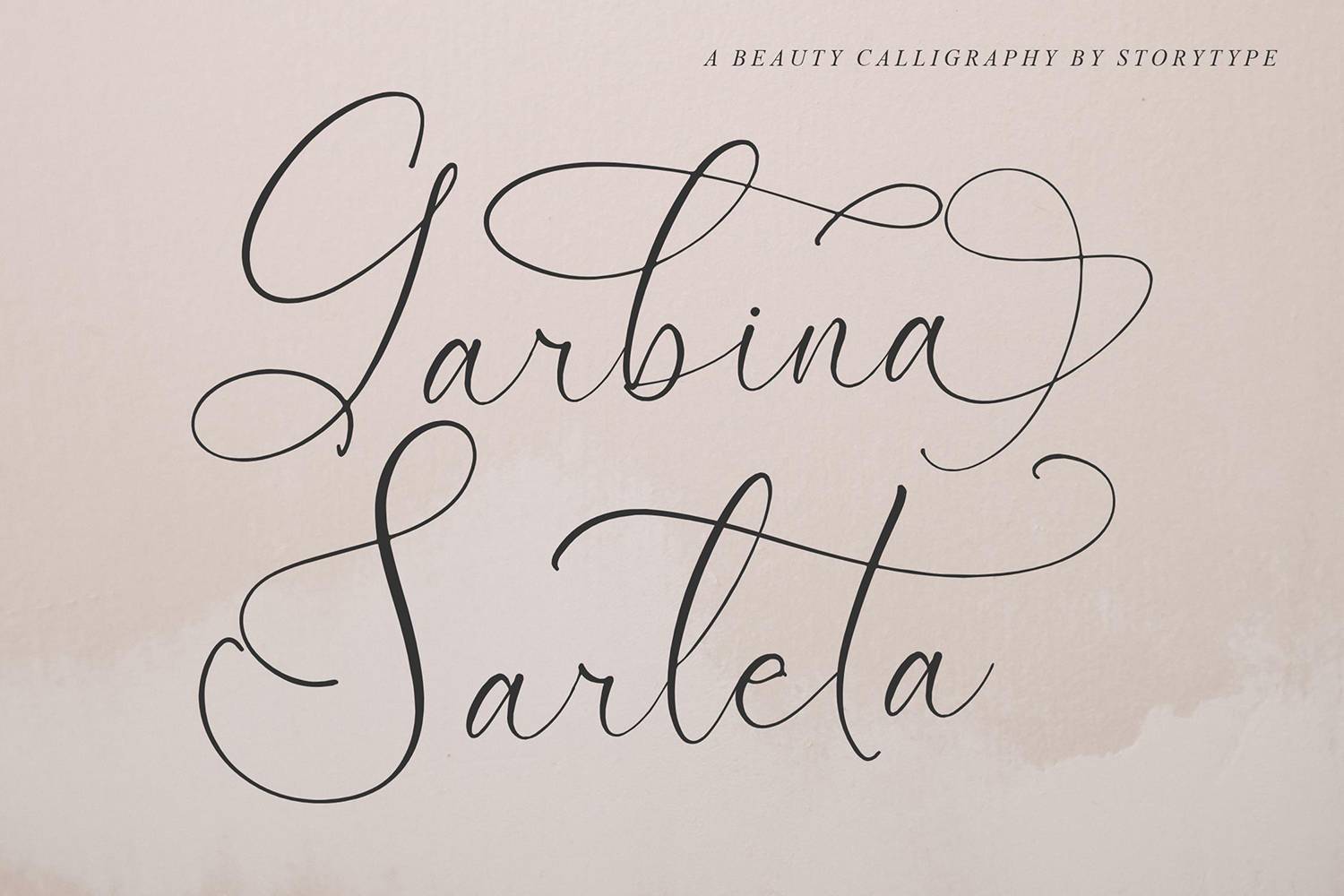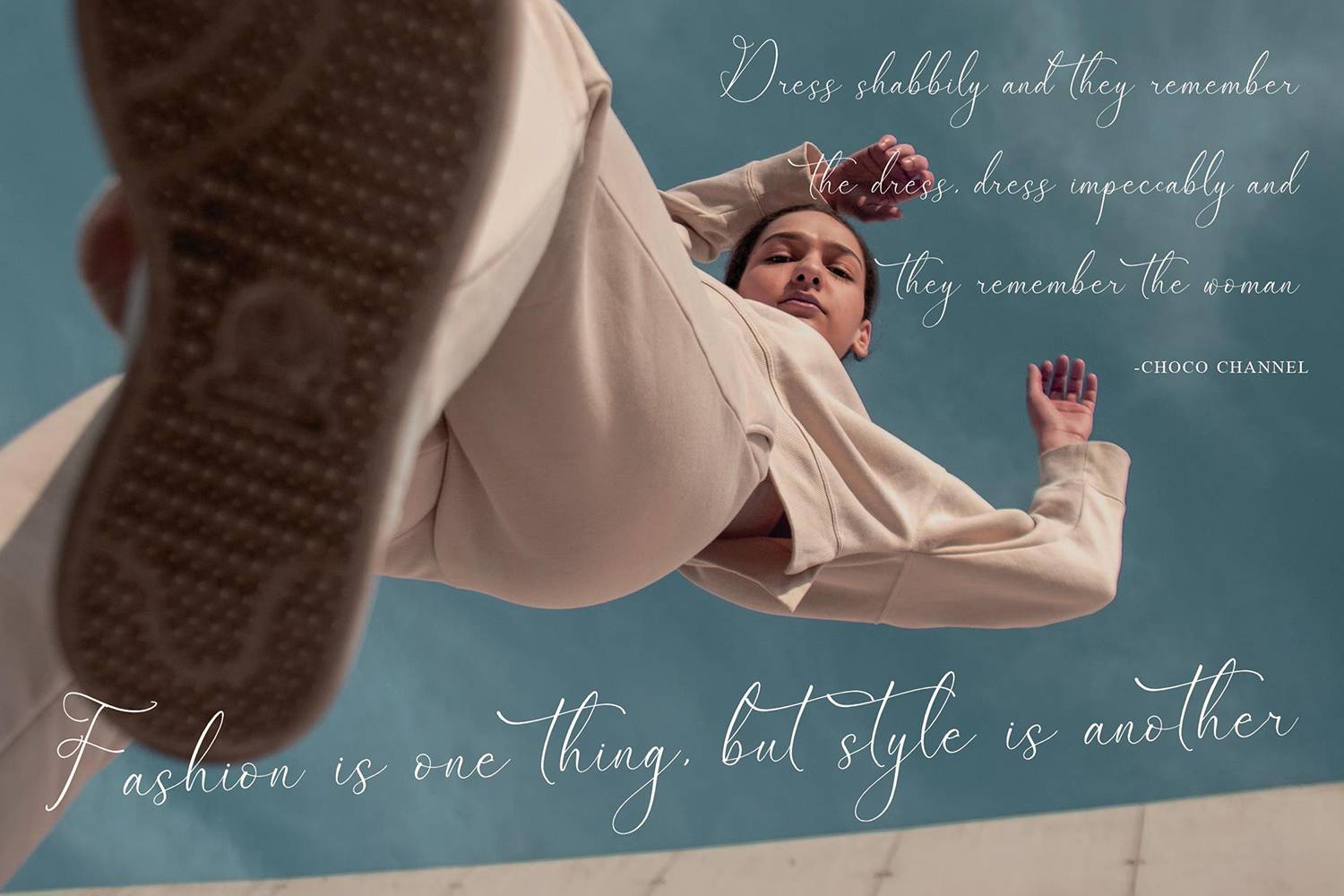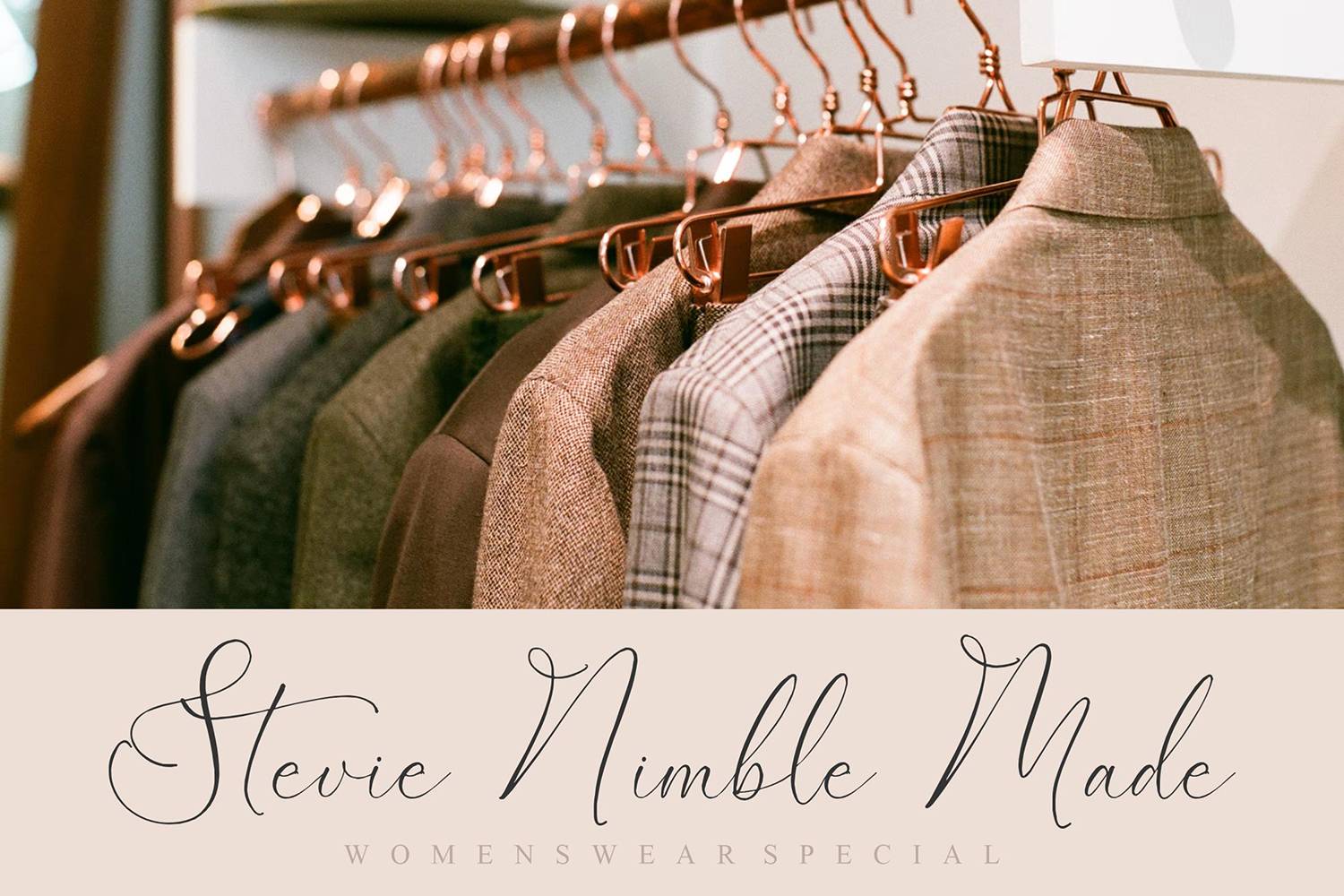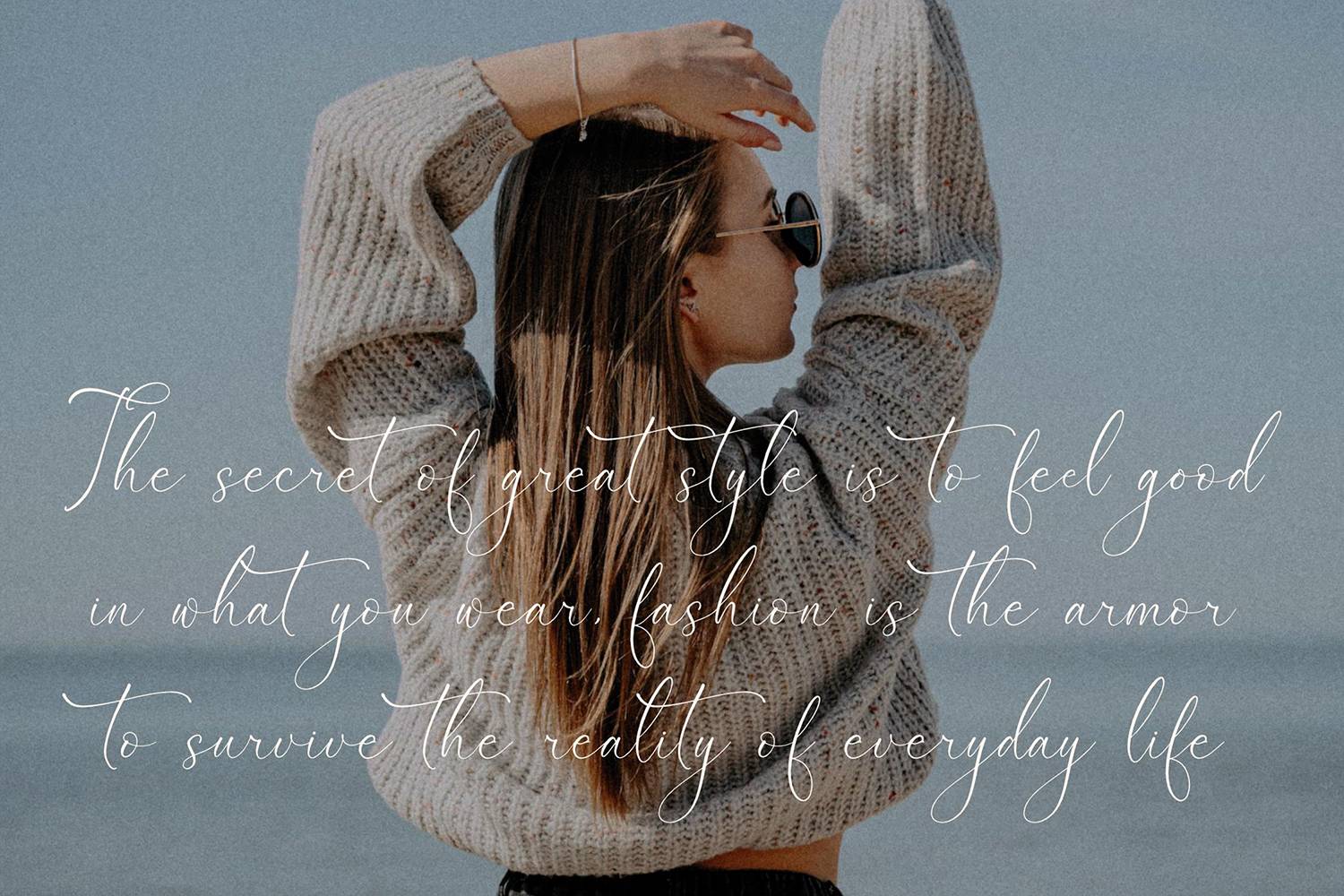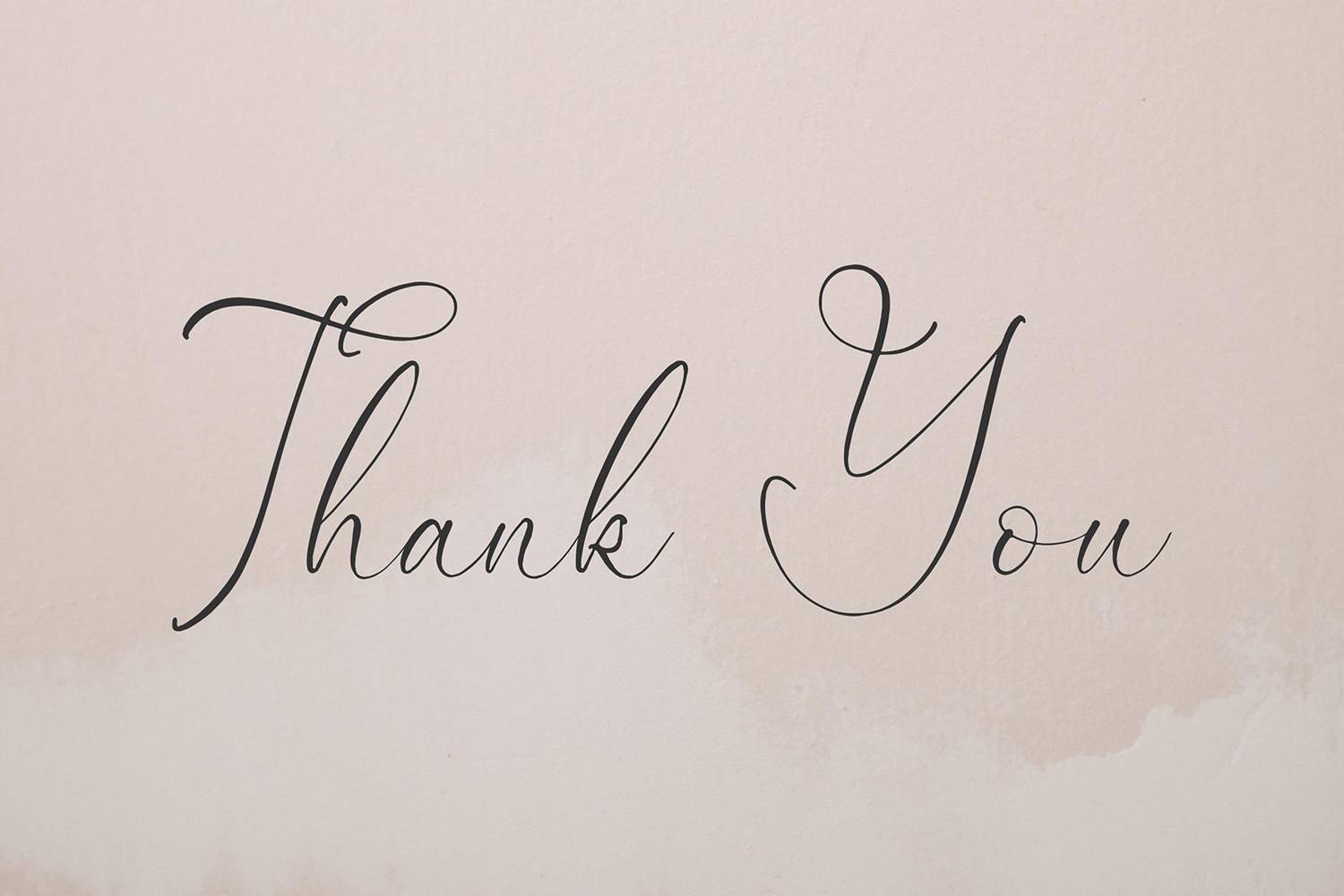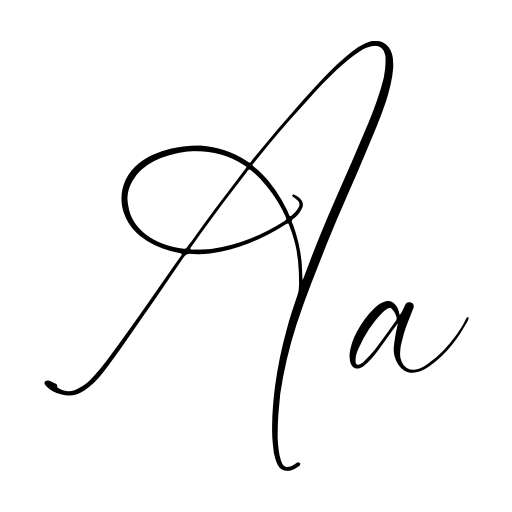
Garbina Sarleta is an elegant, delicate script font featuring slender, flowing strokes with graceful flourishes that create a refined, handwritten look. Its light weight and high contrast between thin lines give it an airy and sophisticated feel, making it ideal for luxury branding, wedding invitations, and stylish editorial designs. This font works beautifully where a touch of romance and subtle elegance is desired, especially in large headlines or decorative text.
Garbina Sarleta Font